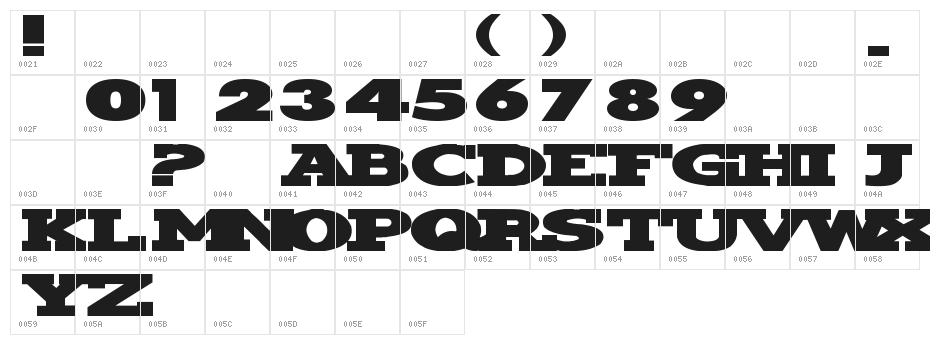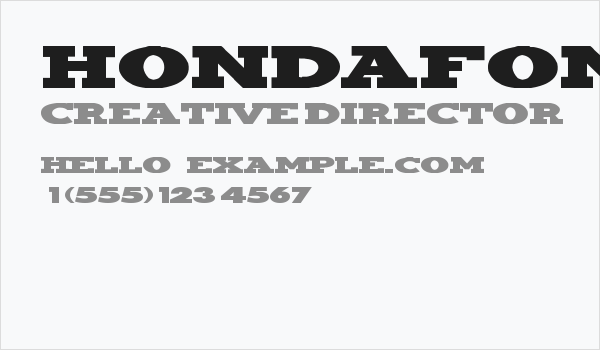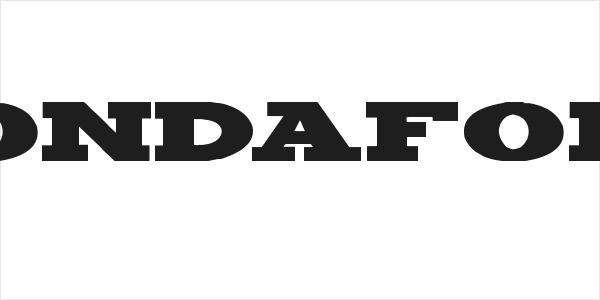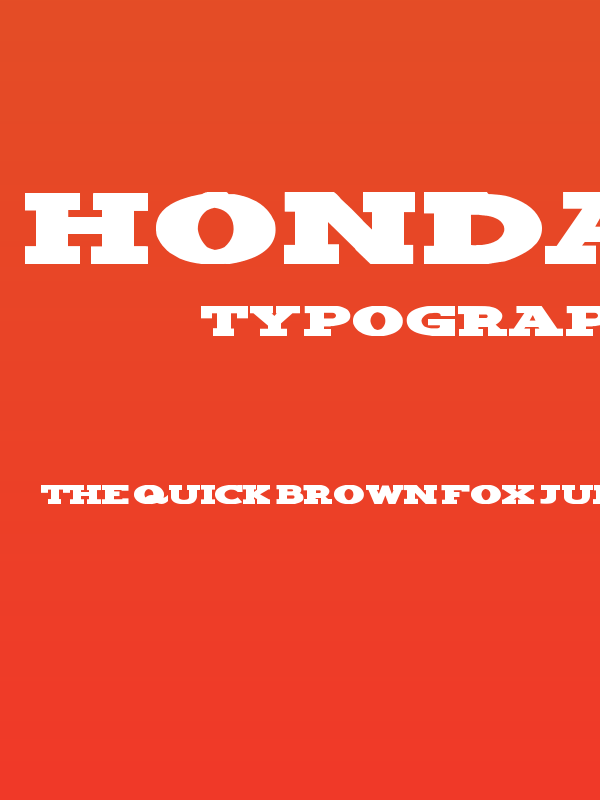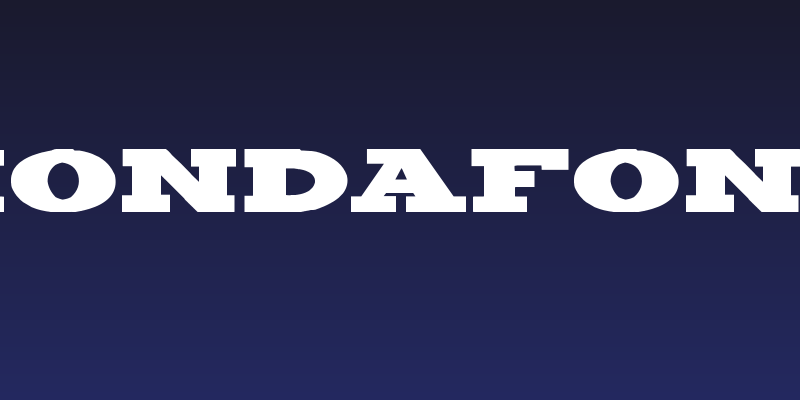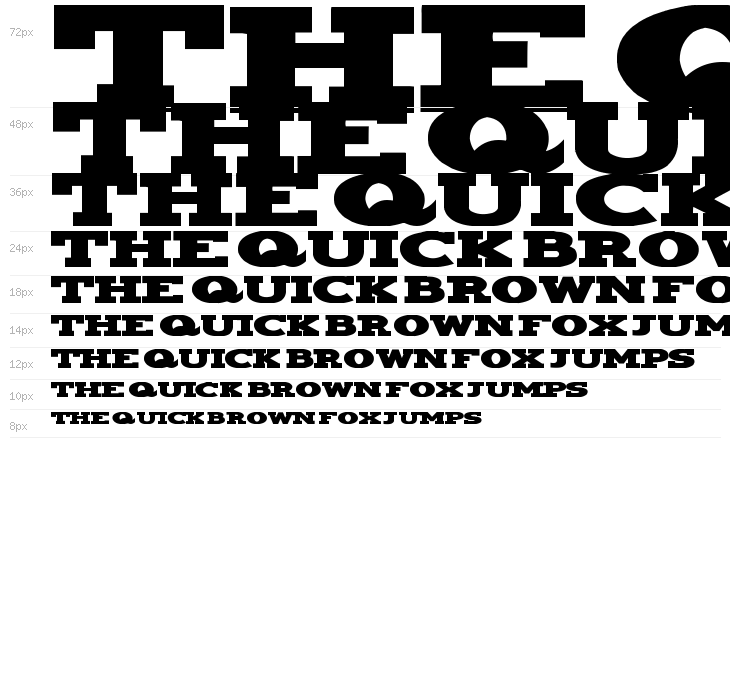
HondaFont Font
HondaFont Description
This font features bold, strong characters with a distinct geometric style. The uppercase letters are characterized by thick, uniform strokes that convey a sense of power and stability. The numbers share this robust design, making them highly legible and impactful. The special characters are designed to match the boldness of the letters and numbers, ensuring consistency throughout the typeface. The overall appearance is modern and assertive, suitable for making a strong visual statement.
| Use Case | Logos, Headlines |
| Proposed Projects | Ideal for branding, automotive logos, headlines, and advertising materials that require a strong visual impact. |